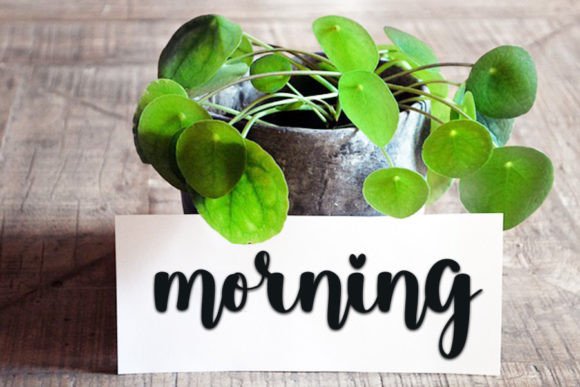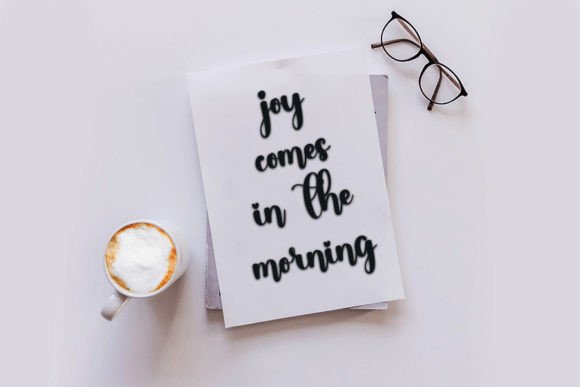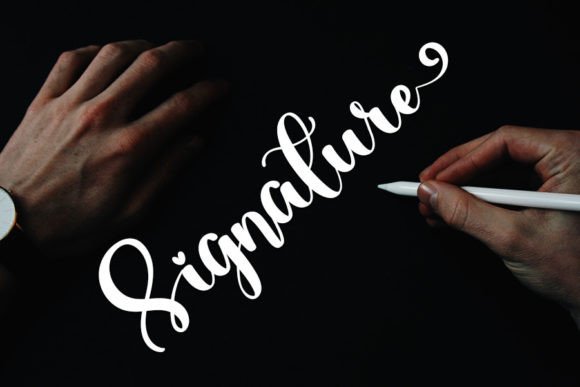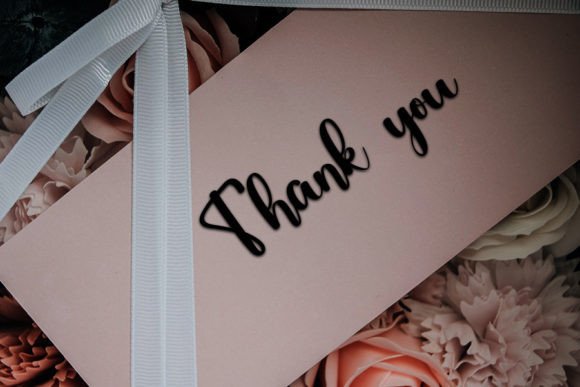
Meet the Barbie Font: Elevate Your Designs with Elegance
Have you ever been working on a project, pouring your heart and soul into it, and then suddenly, you stumble upon the perfect font to bring it all together? That’s exactly what happened to many designers who fell in love with the Barbie Font. Its unique blend of elegance and playfulness makes it the perfect addition to any design.
As a beautiful, handwritten font, the Barbie Font is designed to add a touch of sophistication to your projects. Whether you’re working on a wedding invitation, a blog post, or a social media graphic, this font is sure to make your design stand out. With its timeless style, it’s no wonder why designers are obsessed with the Barbie Font.
Barbie Font Key Features
- Unique Characteristics: The Barbie Font is a custom-designed script font, featuring a playful and feminine aesthetic with swashes and flourishes, making it perfect for feminine and children’s branding.
Designer Review: Barbie Font
First off, I love the nostalgic feel of the Barbie Font. It’s a classic, iconic style that instantly transports me back to my childhood.
✨ One thing that works well is the font’s versatility. It’s great for creating a feminine, playful aesthetic, and it’s perfect for fashion and beauty brands that want to appeal to a younger demographic.
✨ The font also has a wide range of weights and styles, making it easy to customize and use in different contexts. From headers to body text, the Barbie Font is a great choice for designers who want to add a touch of whimsy to their designs.
However, I do think that the font’s limitations hold it back from being a truly great choice for all designers.
⚠️ For one thing, the font’s bold and italic styles can feel a bit over-the-top and may not be suitable for all designs. Additionally, the font’s lack of support for non-Latin scripts makes it less versatile than some other fonts on the market.
Overall, I think the Barbie Font is a fun and playful choice for designers who want to add a touch of nostalgia and whimsy to their designs. While it may not be the best choice for every project, it’s definitely worth considering for the right client or project.
Pros:
- Iconic, nostalgic feel
- Wide range of weights and styles
- Perfect for fashion and beauty brands
Cons:
- Bold and italic styles may be over-the-top
- Lack of support for non-Latin scripts
The Barbie Font is commonly used for:
- Kids’ party invitations and decorations
- Children’s product packaging and advertising
- Education and learning materials for kids
- Playful and feminine designs for social media and marketing